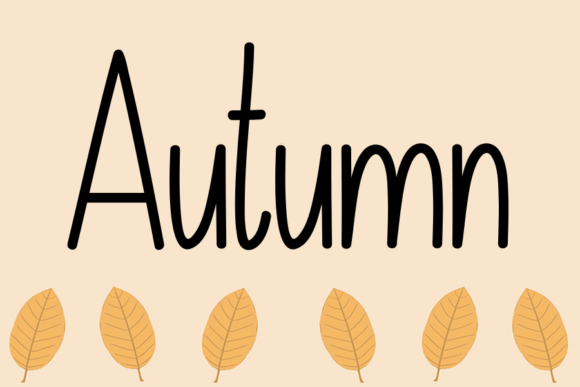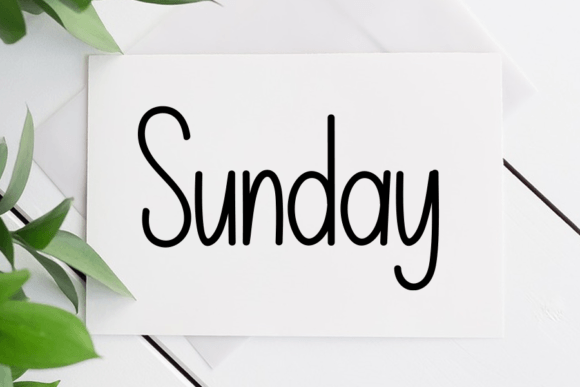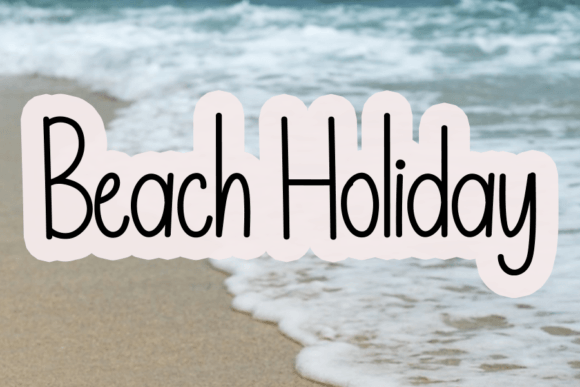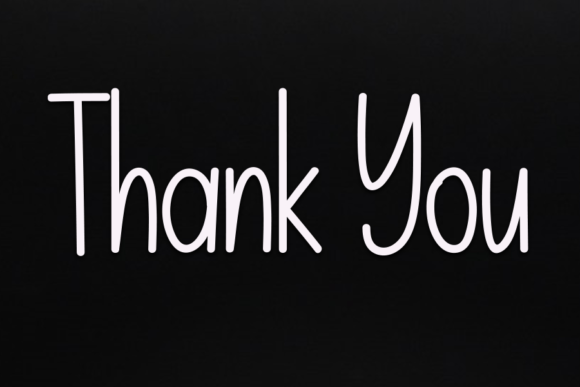
Discover the Delightful World of Angela Font: Your New Go-To for Creative Projects
Are you on the hunt for a font that adds a touch of warmth and personality to your projects? Look no further than Angela Font, a fun and friendly handwritten font that’s perfect for a variety of creative endeavors. Whether you’re a designer, crafter, or simply someone who loves to dabble in digital design, presentations, or making greeting cards, Angela Font is sure to become your new favorite go-to.
The Charm of Angela Font
Angela Font boasts a charming, handcrafted feel that’s sure to capture the hearts of anyone who lays eyes on it. Its unique, flowing script is reminiscent of handwritten notes and letters, evoking a sense of nostalgia and warmth. This font is perfect for adding a personal touch to your projects, making them stand out from the crowd and leaving a lasting impression on your audience.
Endless Possibilities with Angela Font
One of the best things about Angela Font is its versatility. This font can be used for a wide range of projects, from:
- Crafts: Add a personal touch to your handmade crafts, such as scrapbooking, card making, and journaling.
- Digital Design: Use Angela Font to add a touch of whimsy to your social media graphics, blog posts, and website designs.
- Presentations: Make your presentations stand out with a font that’s both fun and professional.
- Greeting Cards: Create one-of-a-kind greeting cards for special occasions, such as birthdays, weddings, and holidays.
Why Angela Font Stands Out
So, what sets Angela Font apart from other fonts on the market? Here are just a few reasons why this font is sure to become your new go-to:
- Unique Character: Angela Font has a distinct, handcrafted feel that’s sure to add a touch of personality to your projects.
- Ease of Use: This font is incredibly easy to read and use, making it perfect for both digital and print projects.
- Flexibility: Angela Font can be used for a wide range of projects, from formal presentations to casual crafts.
- Fun and Friendly: This font is sure to bring a smile to your face and add a touch of whimsy to your projects.
Tips for Using Angela Font
- Pair with Other Fonts: Experiment with pairing Angela Font with other fonts to create a unique and eye-catching combination.
- Play with Sizes: Don’t be afraid to experiment with different font sizes to add visual interest to your projects.
- Add a Personal Touch: Use Angela Font to add a personal touch to your projects, such as a handwritten note or signature.